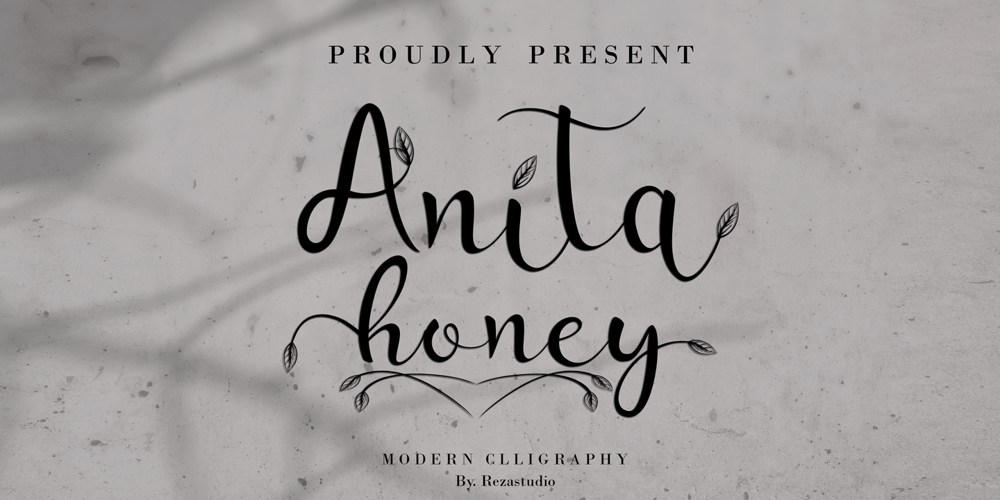
Anita Honey
Anita Honey font
Anita Honey Font Family was designed by Reza Mukhtazar and published by Rezastudio. Anita Honey contains 1 styles and family package options. Anita Honey is an adorable quirky handwritten font. It will add an incredibly joyful touch to your designs.Fall in love with its playful style and use it to create beautiful stationary art, eye-catching social media posts, and much more!